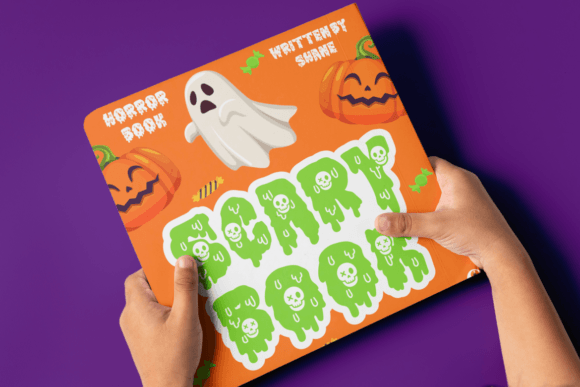
Gothic Haunt Font: The Ultimate Halloween Display Font
Are you looking for a font that captures the eerie yet playful spirit of Halloween? Do you want to add some spooky flair to your designs? If so, you will love Gothic Haunt β Halloween Slime Font! In this article, we will explore the features and benefits of Gothic Haunt, and how it can elevate your Halloween-themed projects.
What is Gothic Haunt Font?
Gothic Haunt is a display font that features quirky letters with dripping effects and creepy embellishments, making it the perfect choice for any Halloween-themed project. Each character is designed with intricate details, echoing the chilling vibes of haunted houses, ghostly apparitions, and mysterious shadows.
The font is designed to evoke the spirit of Halloween, with a playful and eerie tone that is sure to captivate your audience. Whether you’re creating a logo, invitation card, or packaging design, Gothic Haunt is the perfect choice to add a touch of spookiness to your project.
Key Features of Gothic Haunt Font
- Quirky Letters: Gothic Haunt features quirky letters with dripping effects and creepy embellishments, giving your designs a unique and playful touch.
- Intricate Details: Each character is designed with intricate details, echoing the chilling vibes of haunted houses, ghostly apparitions, and mysterious shadows.
- Multiple Styles: Gothic Haunt offers various styles that align with its Halloween theme, giving you the freedom to use each style independently or mix them for a richer visual experience.
- Versatile: Gothic Haunt is not just a font; itβs an experience that transports you to a world where ghosts, goblins, witches, and monsters roam free.
Benefits of Using Gothic Haunt Font
Gothic Haunt is more than just a font; it’s an experience that can elevate your Halloween-themed projects to the next level. Here are some benefits of using Gothic Haunt:
- Captivating Audience: Gothic Haunt is sure to captivate your audience with its playful and eerie tone, making your designs stand out from the crowd.
- Endless Applications: Gothic Haunt is ideal for logos, branding initiatives for childrenβs themes, crafting projects, invitation cards, or even packaging β its application is as limitless as your imagination.
- Choose Your Style: Choose the style that suits your project, or mix and match different styles for a unique look.
Tips and Tricks for Using Gothic Haunt Font
Here are some tips and tricks to help you get the most out of Gothic Haunt:
- Experiment with Different Styles: Don’t be afraid to experiment with different styles to find the one that works best for your project.
- Use it with Other Fonts: Gothic Haunt can be paired with other fonts to create a unique and interesting look.
- Pay Attention to Details: Pay attention to the details of your design, as Gothic Haunt is all about intricate details and quirky effects.
In conclusion, Gothic Haunt β Halloween Slime Font is the perfect choice for any Halloween-themed project. With its quirky letters, intricate details, and multiple styles, Gothic Haunt is sure to captivate your audience and add a touch of spookiness to your designs.
- Q: What is Gothic Haunt Font? A: Gothic Haunt is a display font that features quirky letters with dripping effects and creepy embellishments, making it the perfect choice for any Halloween-themed project.